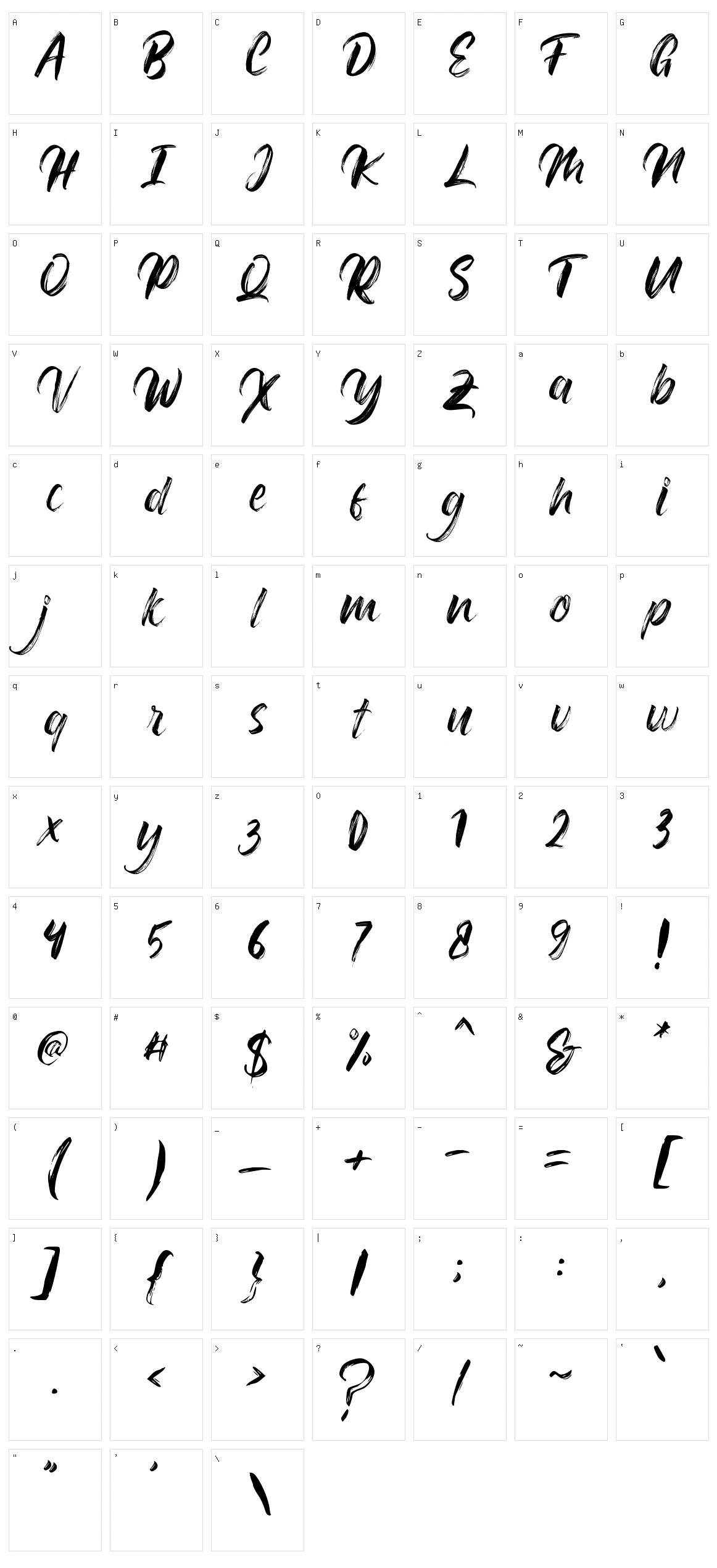
The free font Mahens is carefully designed by Debut Studio, showcasing a thoughtful balance of creativity and usability and falls under the Script font style. When you download the ZIP file, it contains only 453.62 KB of font files, making it lightweight and quick to download. Please review the license details below to understand permitted usage and distribution rights. If license information is not available, we recommend using this font for personal projects only or contacting the author directly for commercial usage permissions.